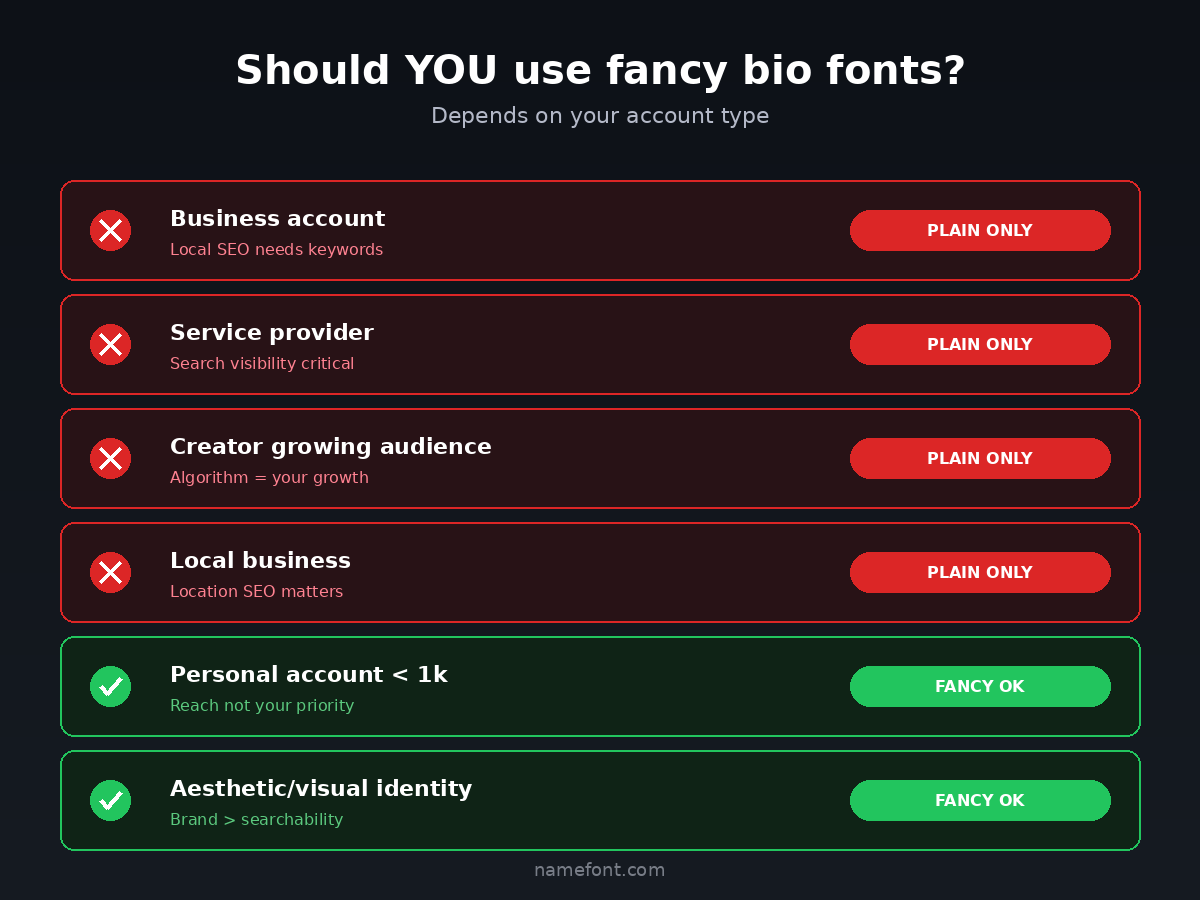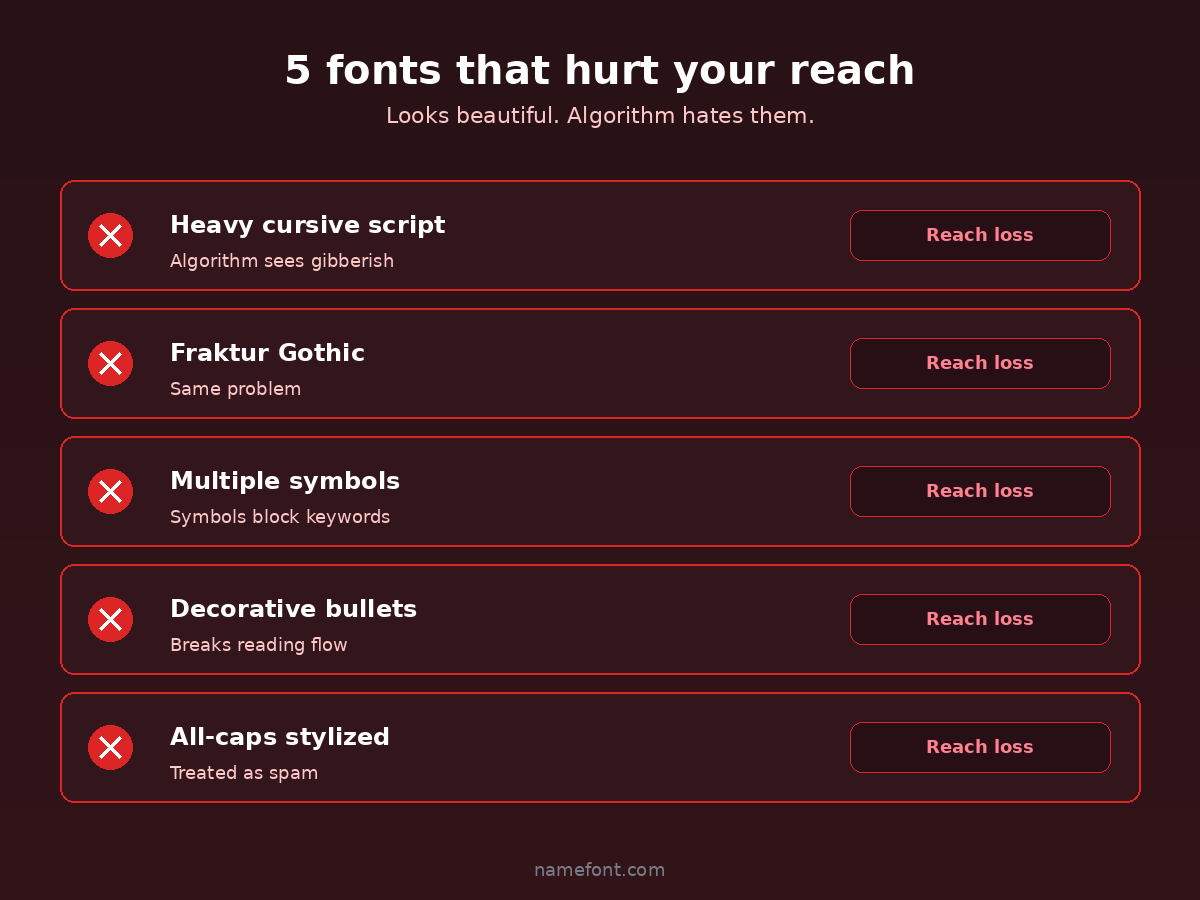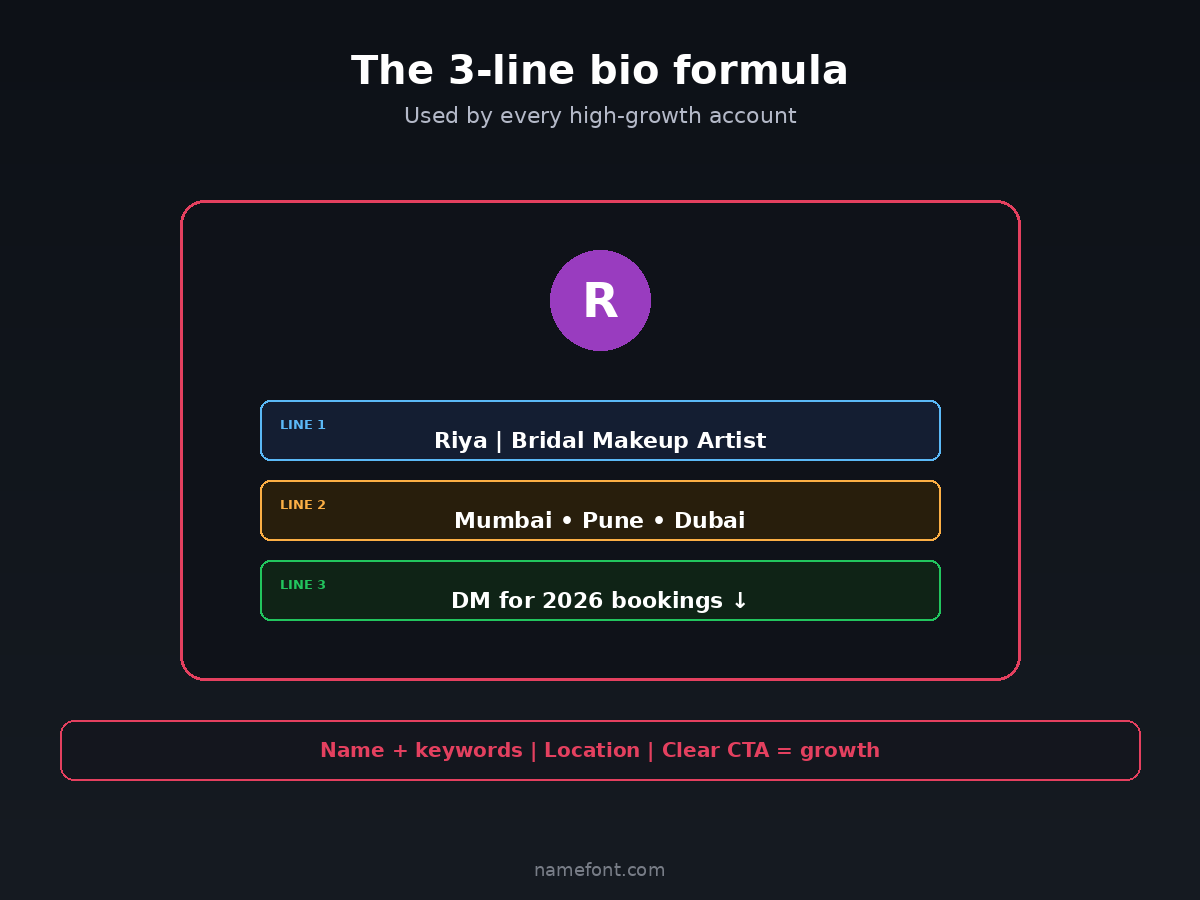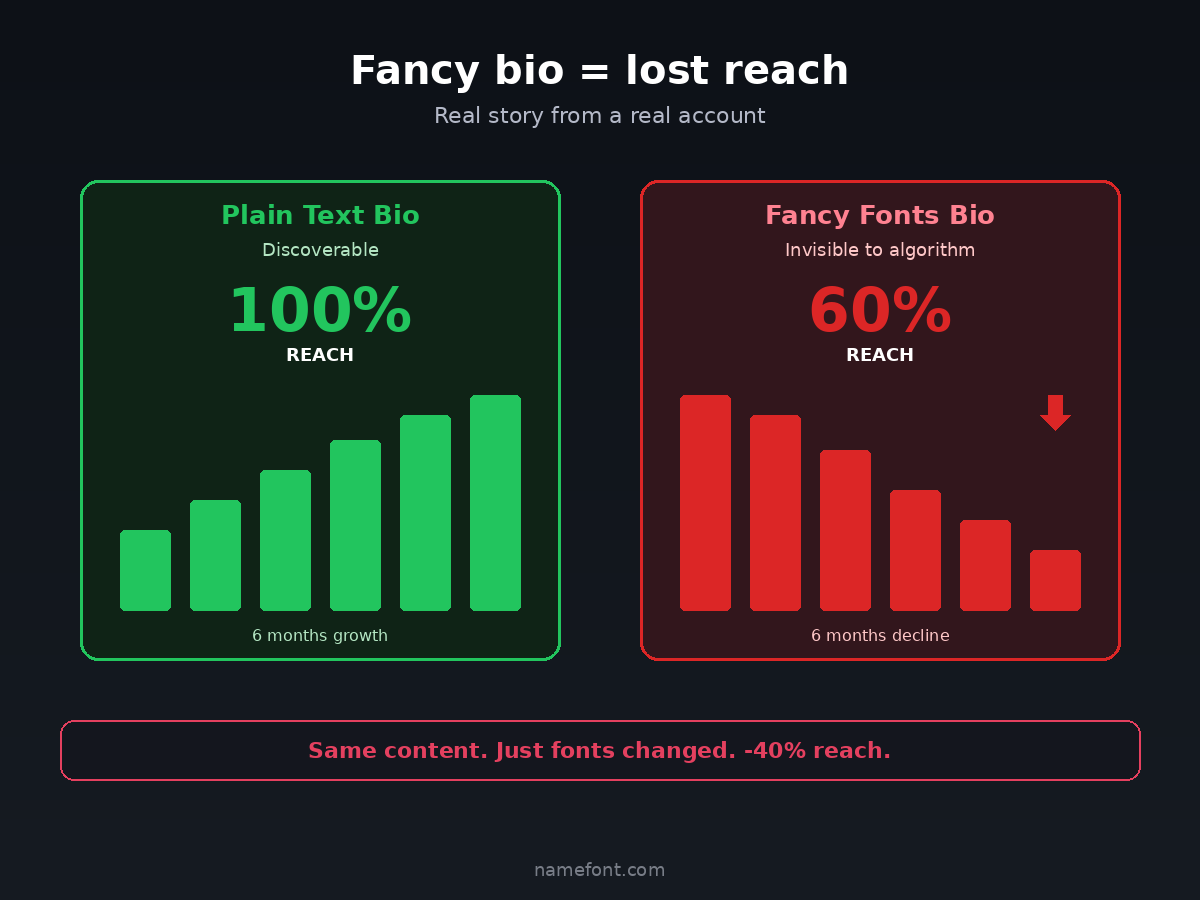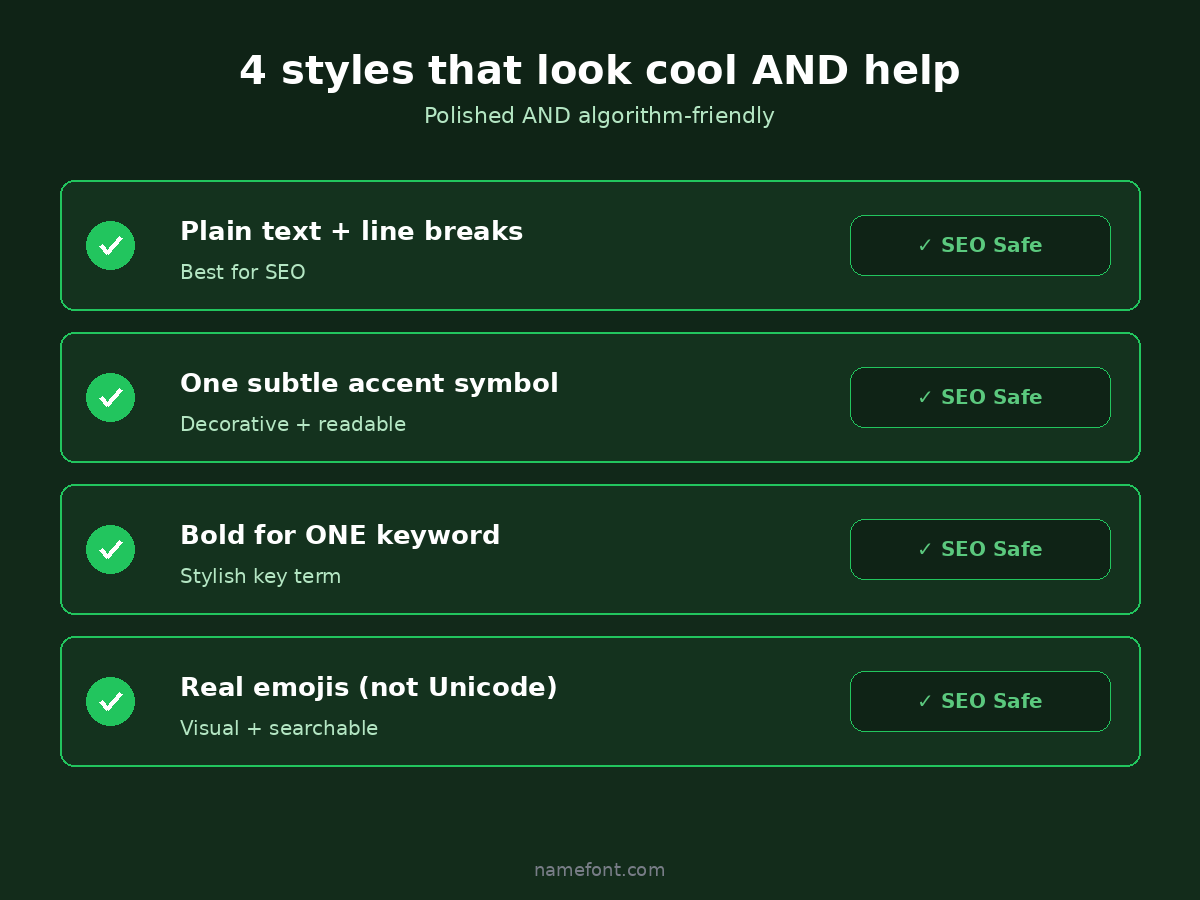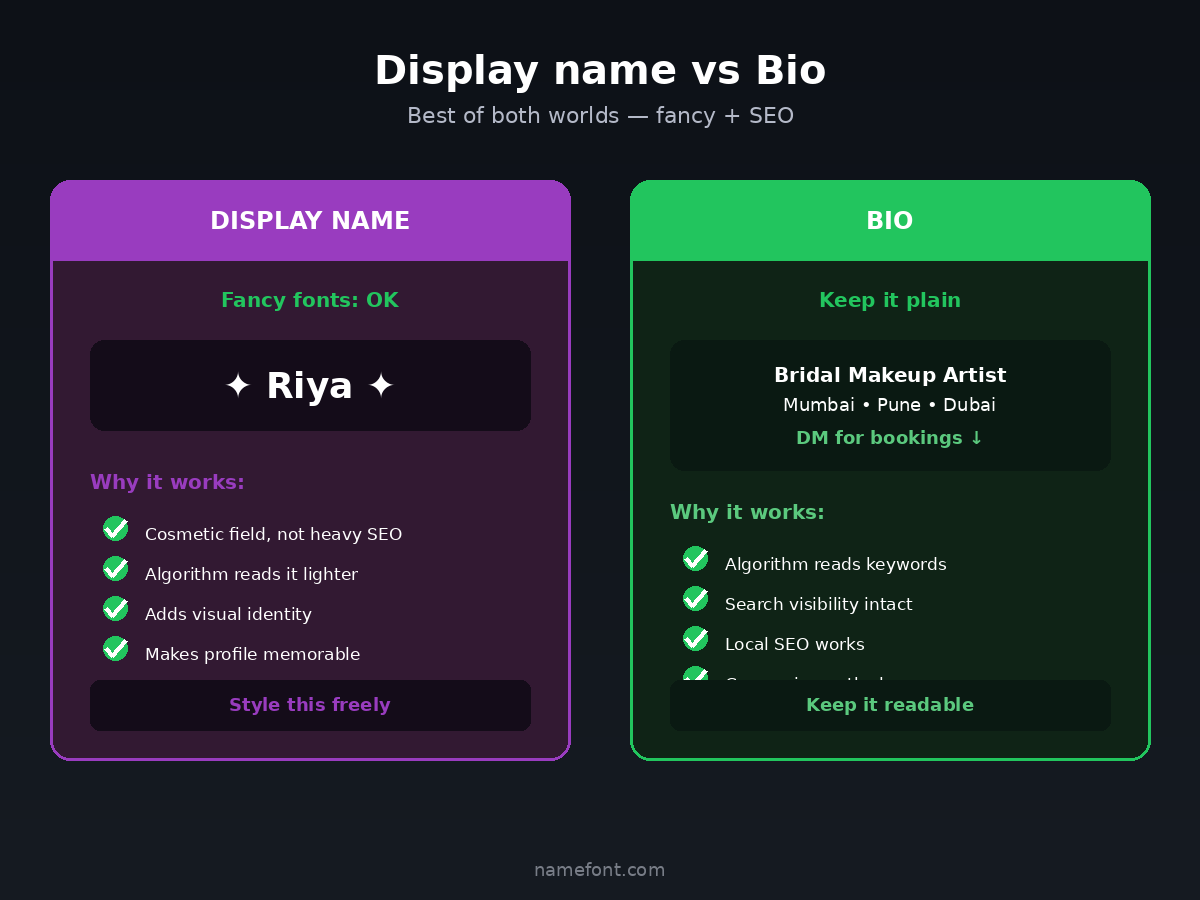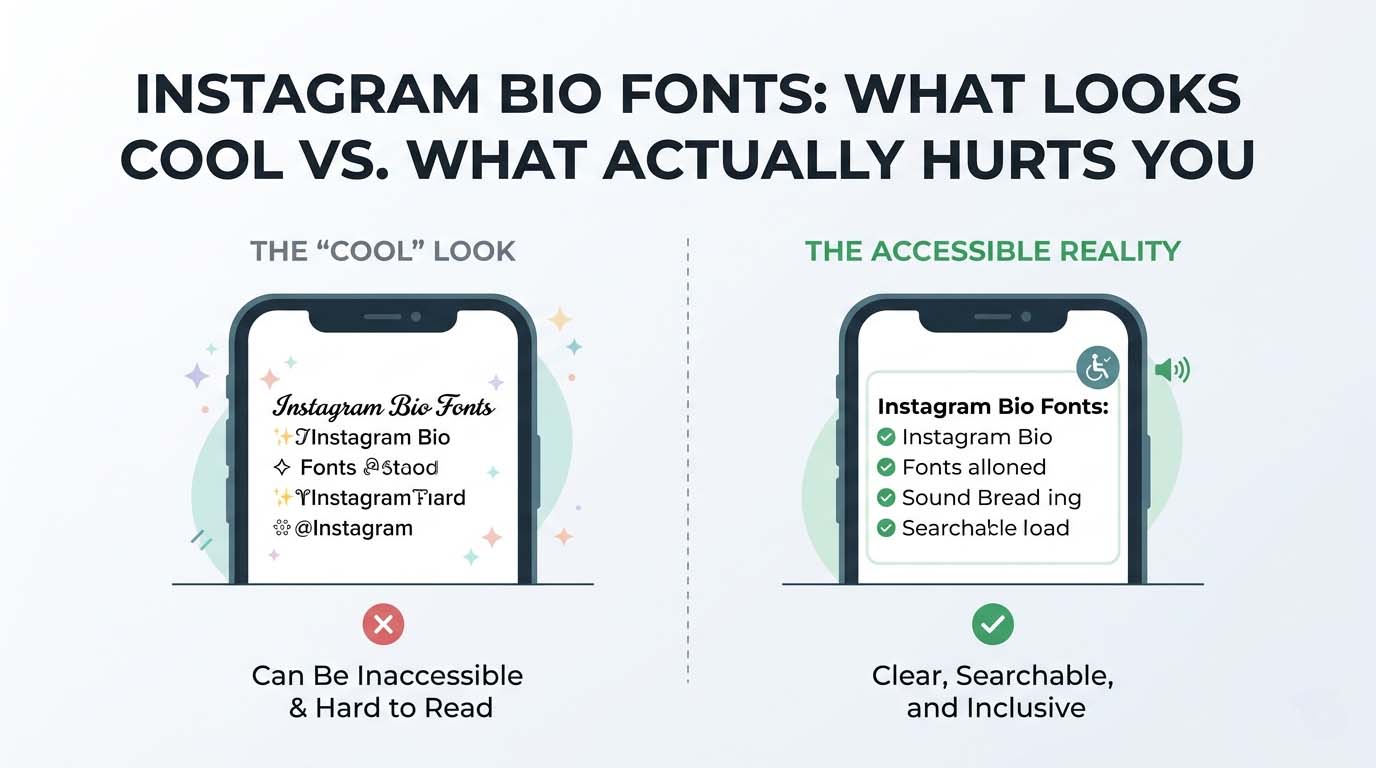
Quick story. My friend in Mumbai had this gorgeous Instagram bio. Cursive font, aesthetic symbols, the works. Looked like something you'd save to a Pinterest board.
Six months later her reach had dropped by like 40%.
She thought it was the algorithm. Bad luck. Maybe she was shadowbanned. Turns out the problem was her bio. Specifically, the fancy font she was using.
Most people don't know this โ Instagram's algorithm reads your bio and uses it for discovery. Fancy fonts that look beautiful to humans look like gibberish to Instagram's search system. Your account becomes invisible to people who'd love your content.
After testing this on multiple accounts and reading every Instagram SEO study published in 2025-2026, here's the real story on Instagram bio fonts. What looks cool, what actually works, and what's quietly killing your reach.
The Instagram bio reach problem nobody talks about
Here's how Instagram discovery works in 2026:
When someone searches "makeup tutorials" on Instagram, the algorithm looks at:
Your username
Your display name
Your bio text
Your recent post captions
Your hashtags
Your engagement signals
If your bio says "๐๐ช๐ด๐ฎ๐พ๐น ๐ฃ๐พ๐ฝ๐ธ๐ป๐ฒ๐ช๐ต๐ผ" (cursive), the algorithm doesn't see "Makeup Tutorials." It sees a string of unreadable Unicode characters.
So when someone searches "makeup tutorials," Instagram shows accounts with the actual words "makeup tutorials" in their bio. Your fancy version doesn't match.
You just disappeared from search.
What fancy fonts actually do to your account
Three quiet things happen when you use fancy fonts in your bio:
1. Your account stops appearing in search
Type your own name with fancy fonts into Instagram search. You probably won't find yourself. That's how Google indexes your account too.
2. Hashtags in fancy fonts get treated as spam
If you put fancy fonts inside your hashtags (#๐๐๐ ๐๐ช๐ฅ), Instagram flags them as spam-like behavior. Reach drops.
3. Your category gets unclear
Instagram tries to categorize your account based on bio keywords. "Beauty creator" gets you into beauty content recommendation. "๐๐ฎ๐ช๐พ๐ฝ๐ ๐๐ป๐ฎ๐ช๐ฝ๐ธ๐ป" gets you into nothing.
Result: less reach, less new followers, less growth. All quietly, no notification.
What looks cool but hurts you
Specific fonts and patterns that look great but damage your reach:
Heavy cursive script (๐๐พ๐ป๐ผ๐ฒ๐ฟ๐ฎ ๐ข๐ฌ๐ป๐ฒ๐น๐ฝ)
Looks: Beautiful, romantic, premium
Reality: Algorithm can't read these characters. Total SEO loss.
Fraktur Gothic (๐๐ฏ๐๐จ๐ฑ๐ฒ๐ฏ)
Looks: Edgy, mysterious, dark aesthetic
Reality: Same problem. Looks cool, ranks zero.
Multiple aesthetic symbols
Looks: โฟ Kavya โฟ โ Photographer โ
Reality: The algorithm reads the symbols, ignores or de-prioritizes the words between them.
Decorative bullet bios
Looks: โฟ Photographer โฟ Mumbai โฟ DM for bookings
Reality: Symbols every other word break the reading flow for the algorithm. Your keywords don't connect.
All-caps stylized
Looks: ๐ ๐๐๐๐จ๐ฃ ๐๐ฅ๐๐๐ง๐ข๐ฅ
Reality: Bold sans is technically readable but all-caps is treated as shouting/spam. Reduced score.
What looks cool AND helps you
Fonts and styles that look polished AND don't hurt your reach:
Plain text with strategic line breaks
Example:
Riya โ Makeup Tutorials
Mumbai based artist
DM for bookings โAlgorithm reads everything. Looks clean. Wins.
One subtle stylish accent
Example:
Riya โฆ Makeup Tutorials
Mumbai โข DM for bookingsOne symbol = decorative without breaking the keyword flow. Algorithm reads "Makeup Tutorials" perfectly.
Bold for ONE keyword only
Example:
Riya โ ๐ ๐ฎ๐ธ๐ฒ๐๐ฝ ๐ง๐๐๐ผ๐ฟ๐ถ๐ฎ๐น๐
Mumbai based artistBold sans serif IS technically readable by Instagram's algorithm in some cases โ it's a stylistic choice that mostly works.
Real emojis (not Unicode symbols)
Example:
๐ฌ Filmmaker | Mumbai
๐ Available worldwide
โ๏ธ DM for collabsReal emojis are recognized by Instagram, work as visual breaks, AND don't hurt SEO. Win-win.
The 3-line bio formula that actually works
After analyzing high-growth Instagram accounts, the pattern is consistent:
Line 1: Name + what you do (keywords)
Line 2: Where you are or who you serve
Line 3: Call to action
Example:
Riya | Bridal Makeup Artist
Mumbai โข Pune โข Dubai
DM for 2026 bookings โWhy this works:
Algorithm reads "Bridal Makeup Artist" (your keyword)
Algorithm reads "Mumbai Pune Dubai" (location targeting)
Clear conversion path (DM for bookings)
Looks clean and professional
No decorative symbols breaking the flow
What if I want my bio to look stylish AND work
Here's the compromise that doesn't hurt you:
Use fancy fonts for your DISPLAY NAME (above bio), NOT in the bio itself.
Display name = ~30 characters at the top of your profile, separate from bio.
If you want growth, plain text bio with one strategic stylish element wins every time.
If you want pure aesthetic without caring about reach, fancy fonts are fine โ just know the cost.
The middle path: fancy display name, plain bio. Best of both worlds.
Looking cool feels good. Getting found is better.